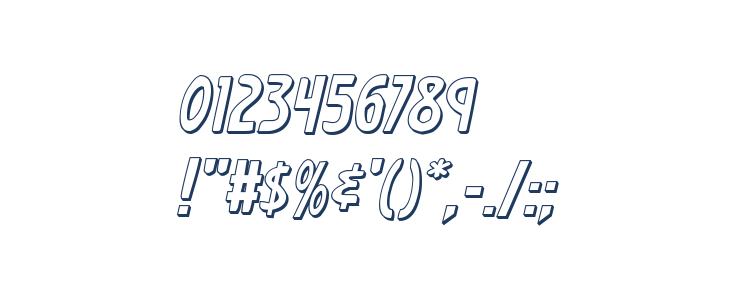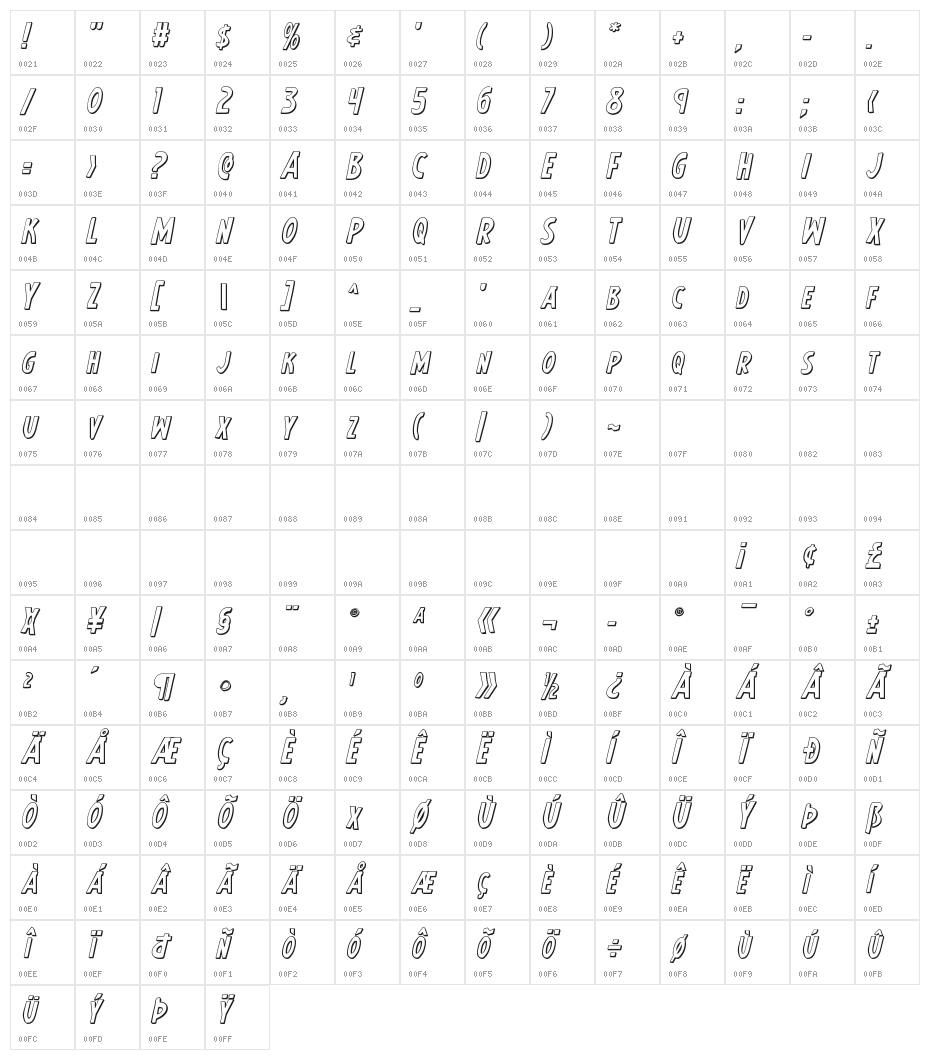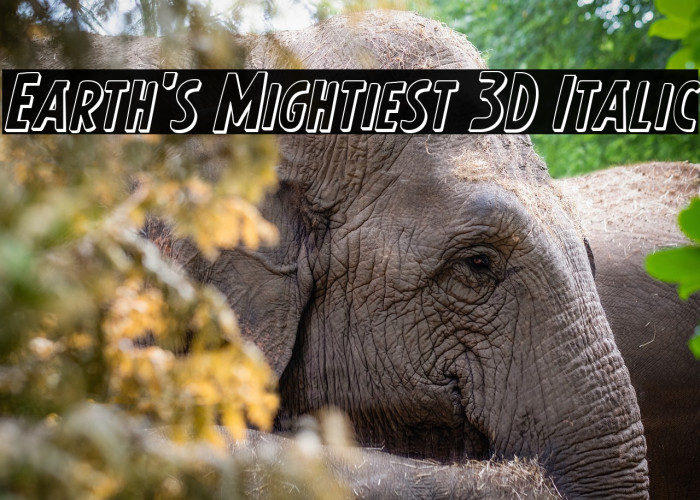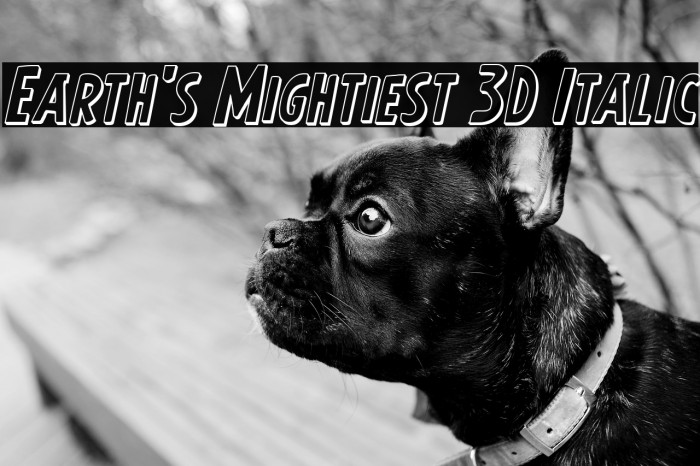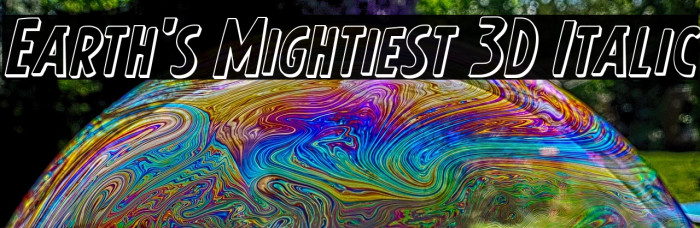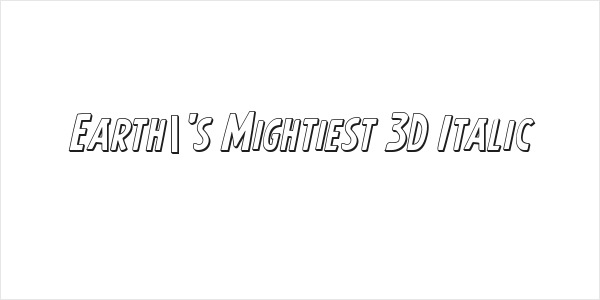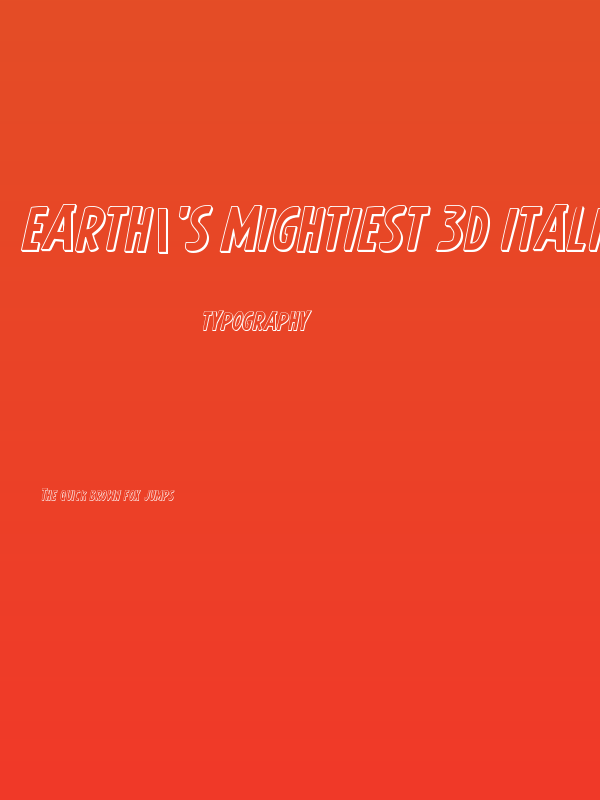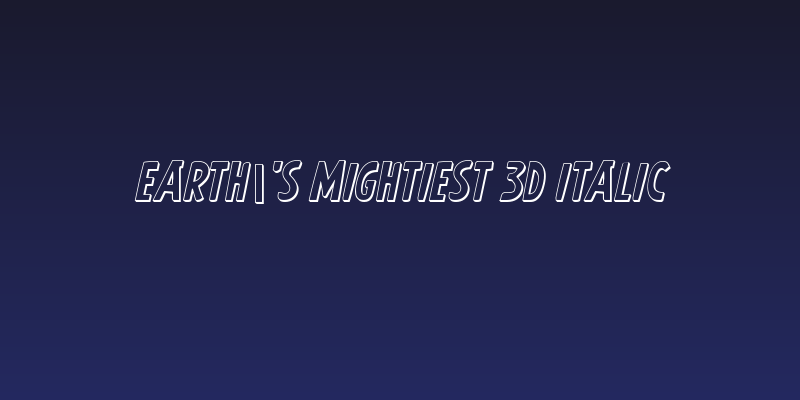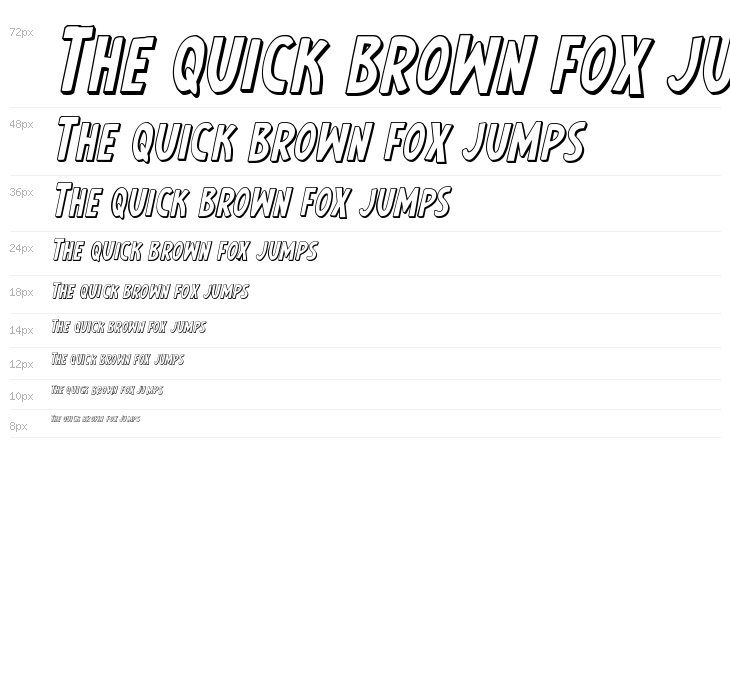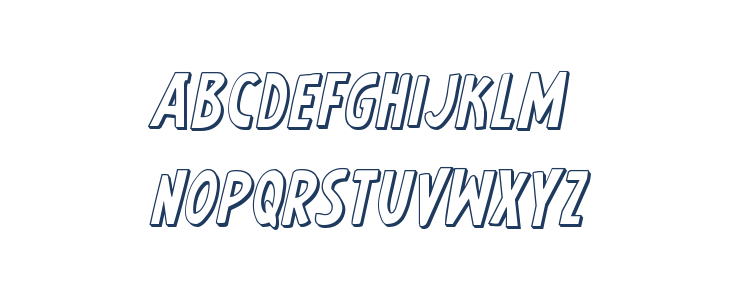
Earth's Mightiest 3D Italic Font
Earth's Mightiest 3D Italic Description
This font features a bold, three-dimensional appearance with a distinct italic slant, giving it a dynamic and energetic feel. The characters are outlined, creating a sense of depth and movement. The uppercase and lowercase letters maintain a consistent style, with smooth curves and sharp angles that enhance the 3D effect. The numerals and special characters are designed to match the boldness and style of the alphabet, ensuring a cohesive look across all text. This font is ideal for projects that require a strong visual impact and a modern, playful aesthetic.
| Proposed Projects | Ideal for comic book titles, movie posters, video game graphics, and any project needing a bold, impactful design. |